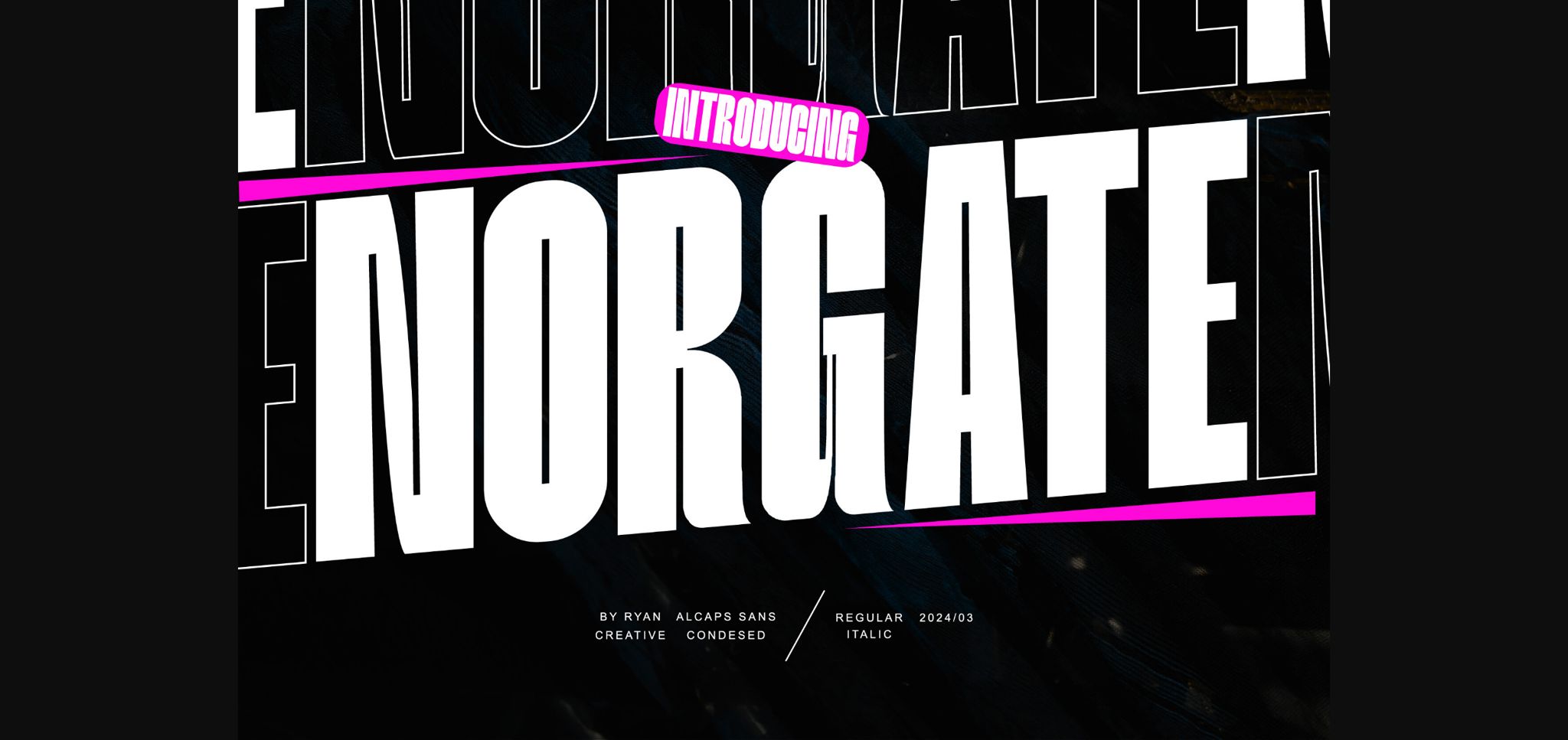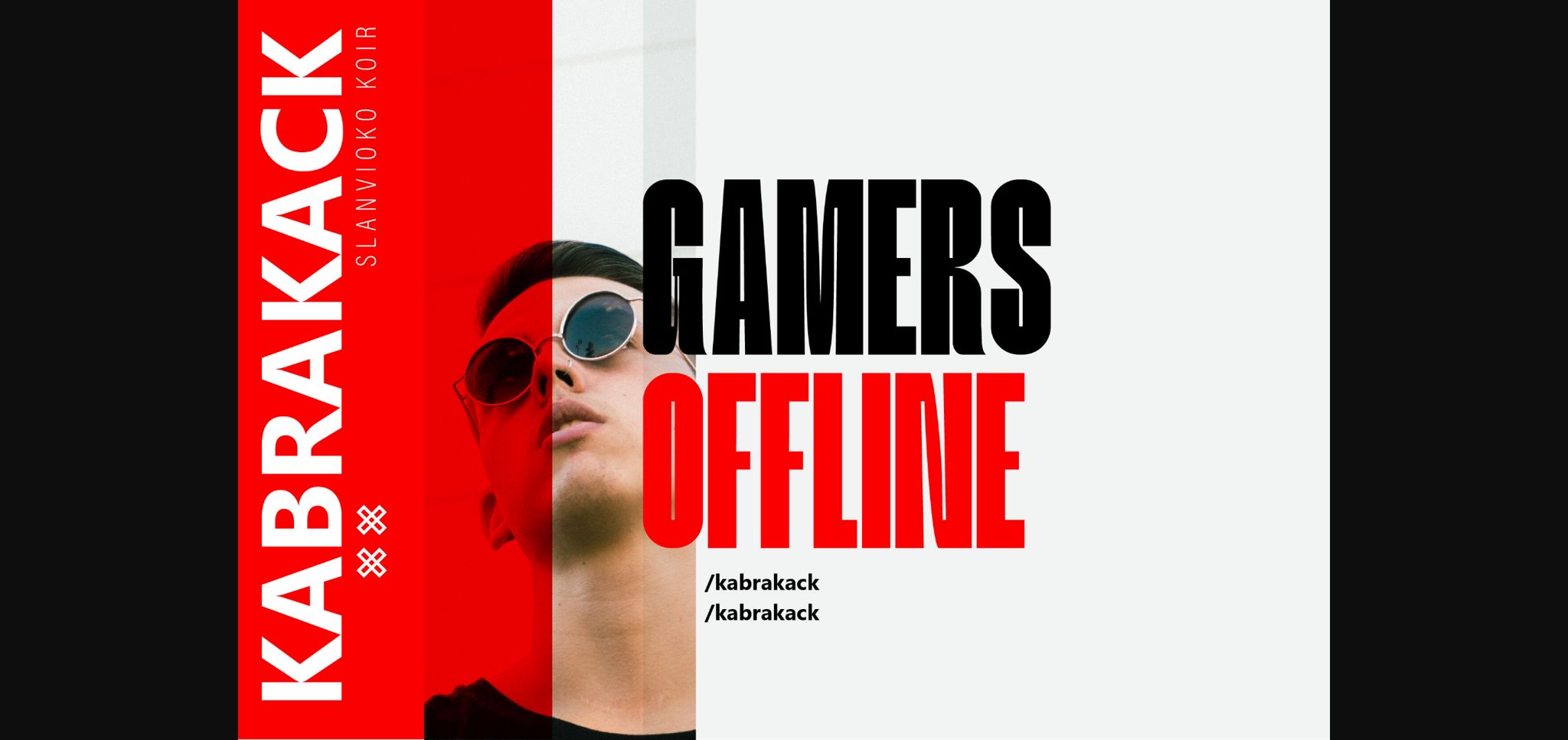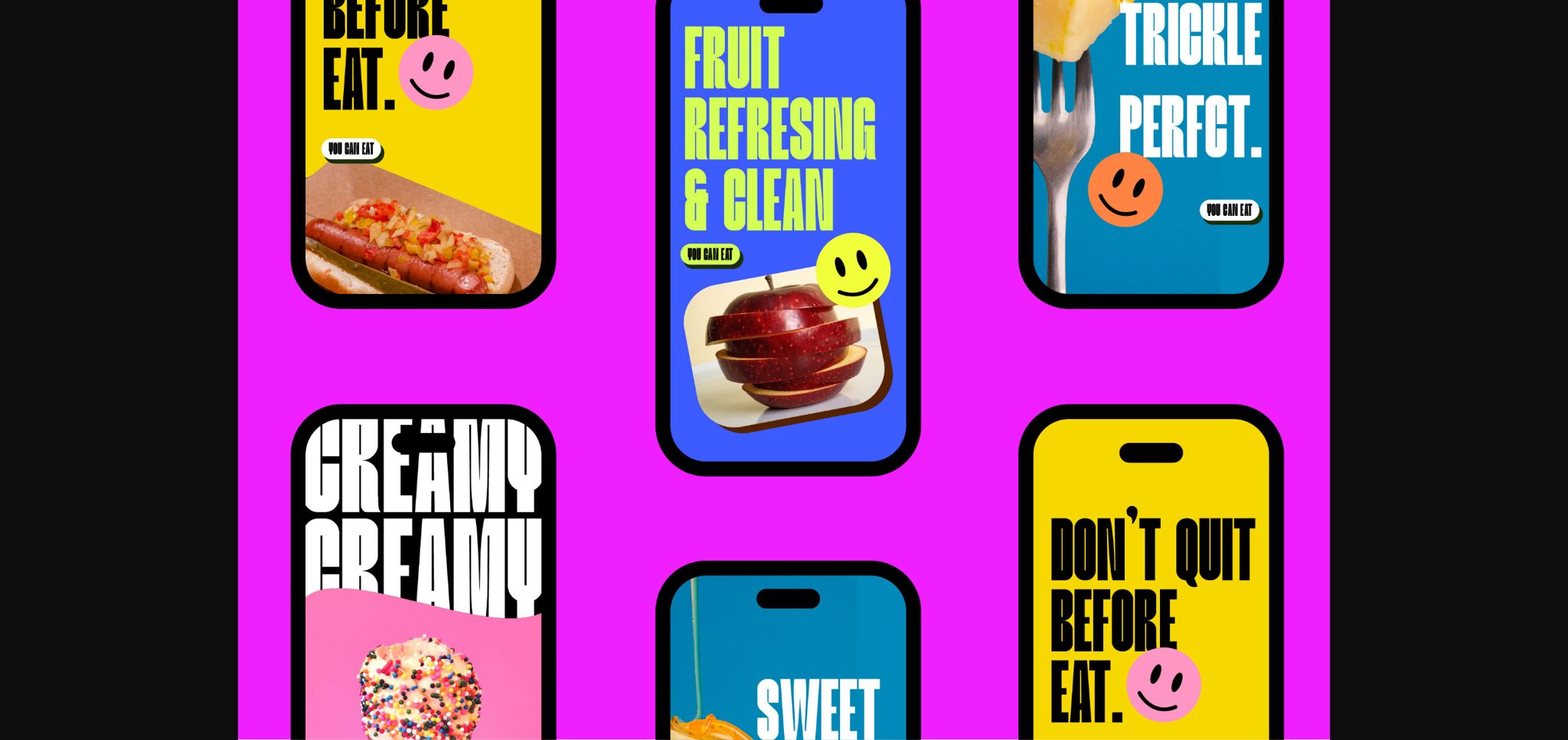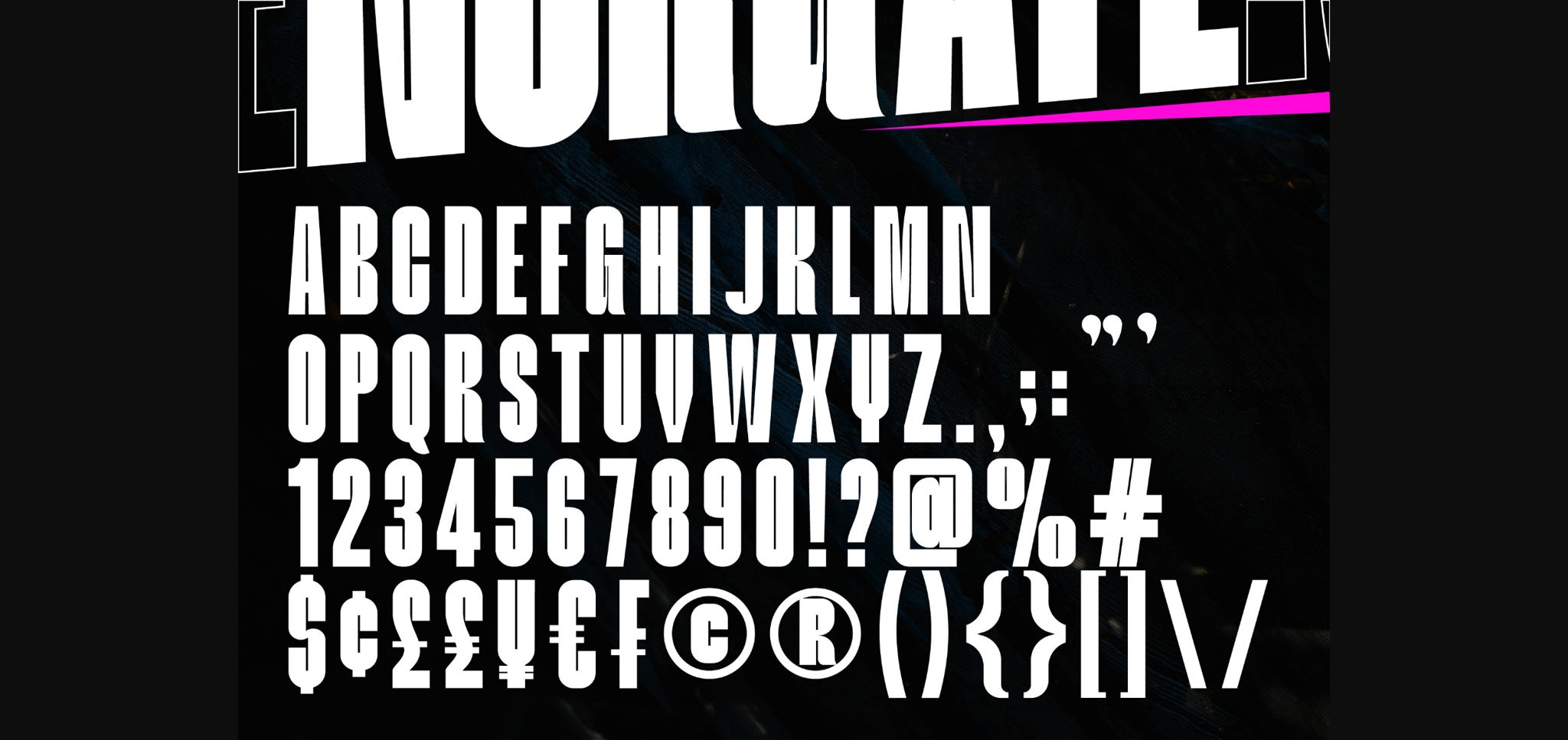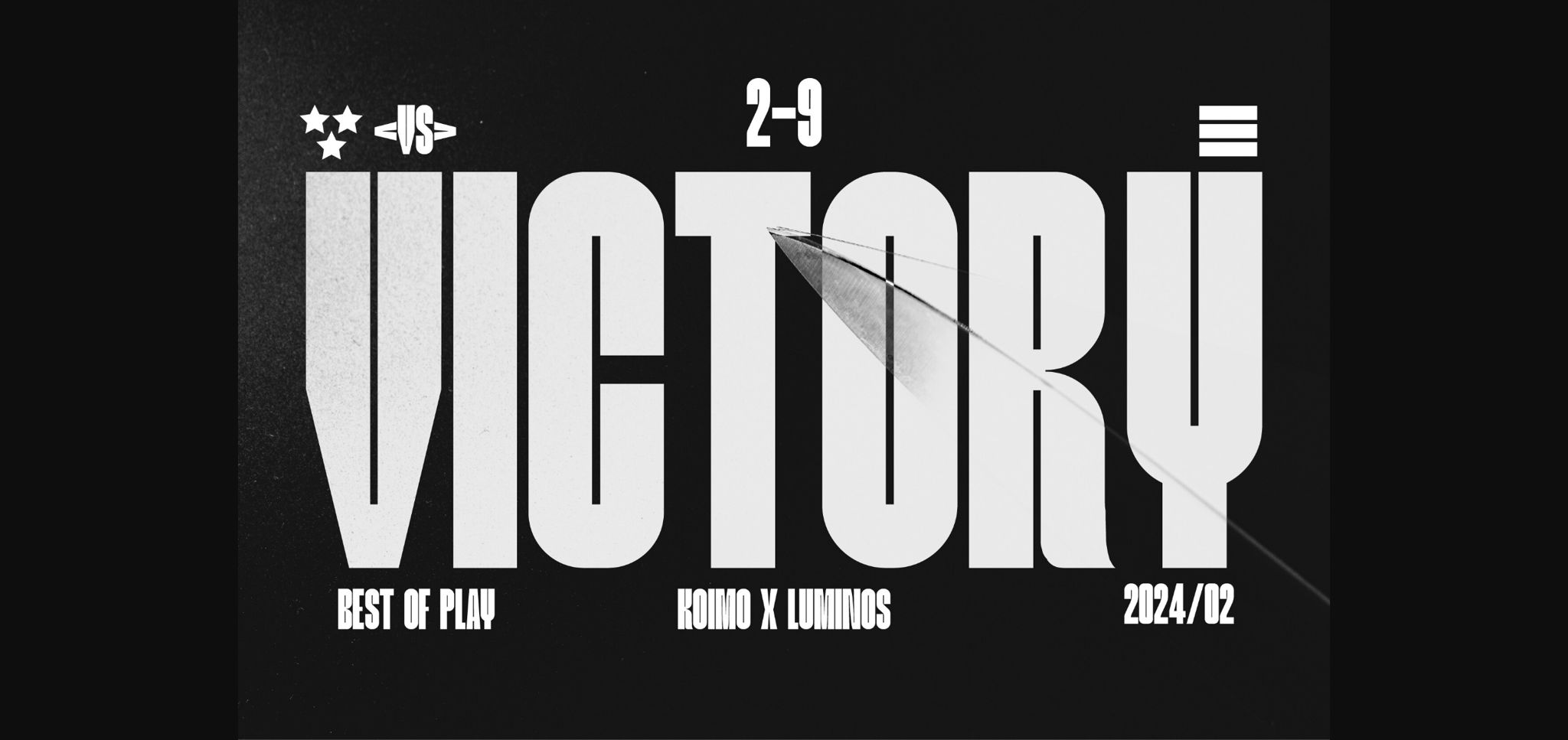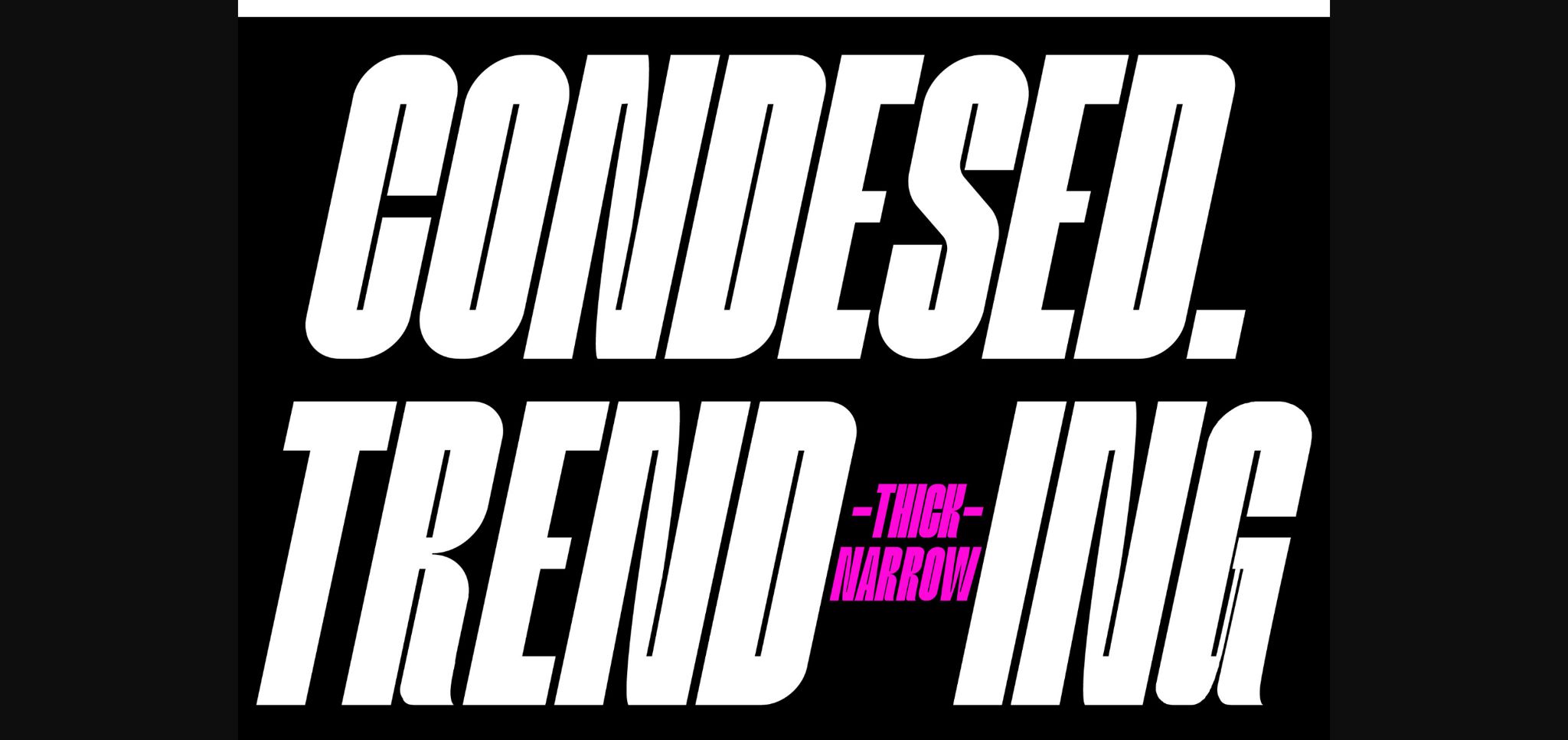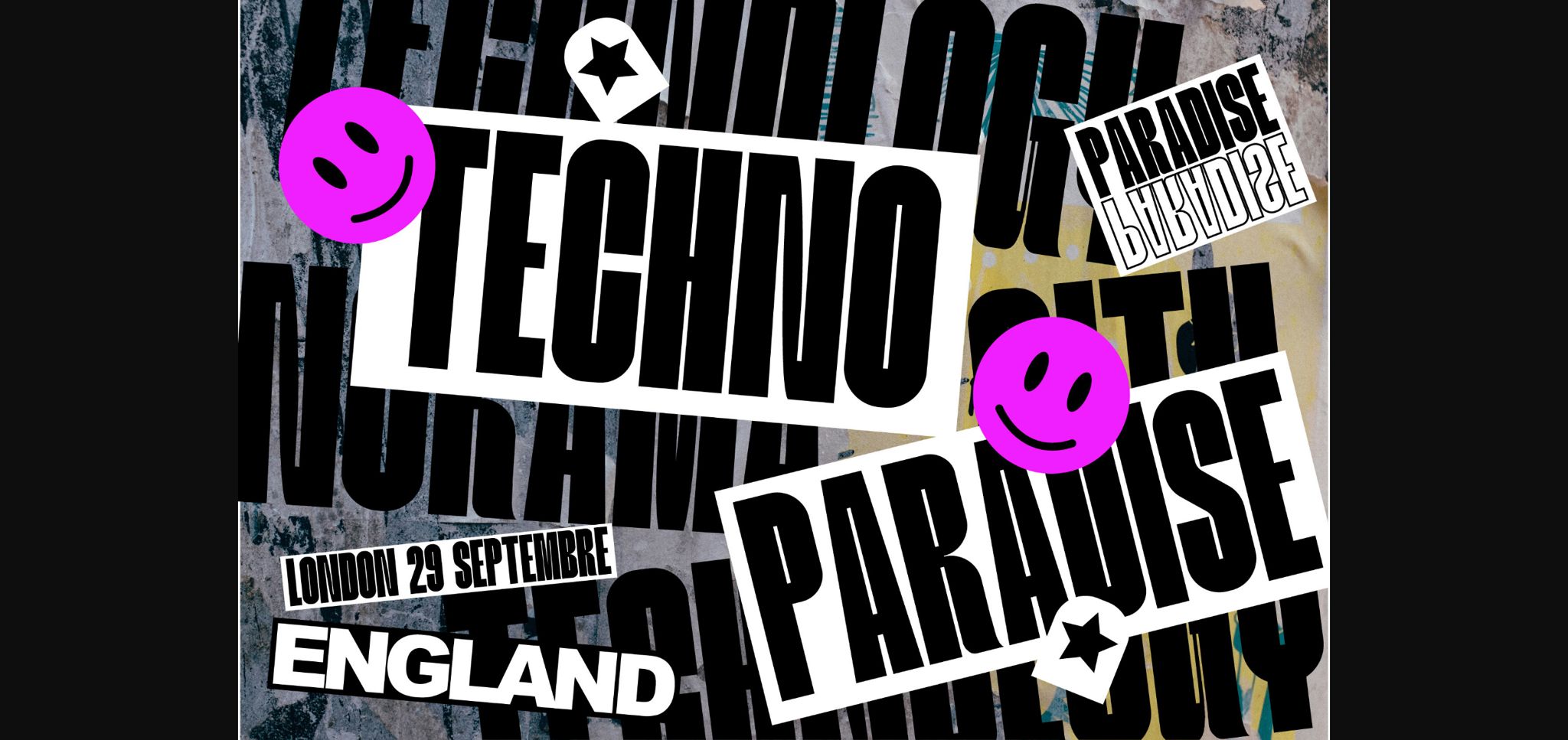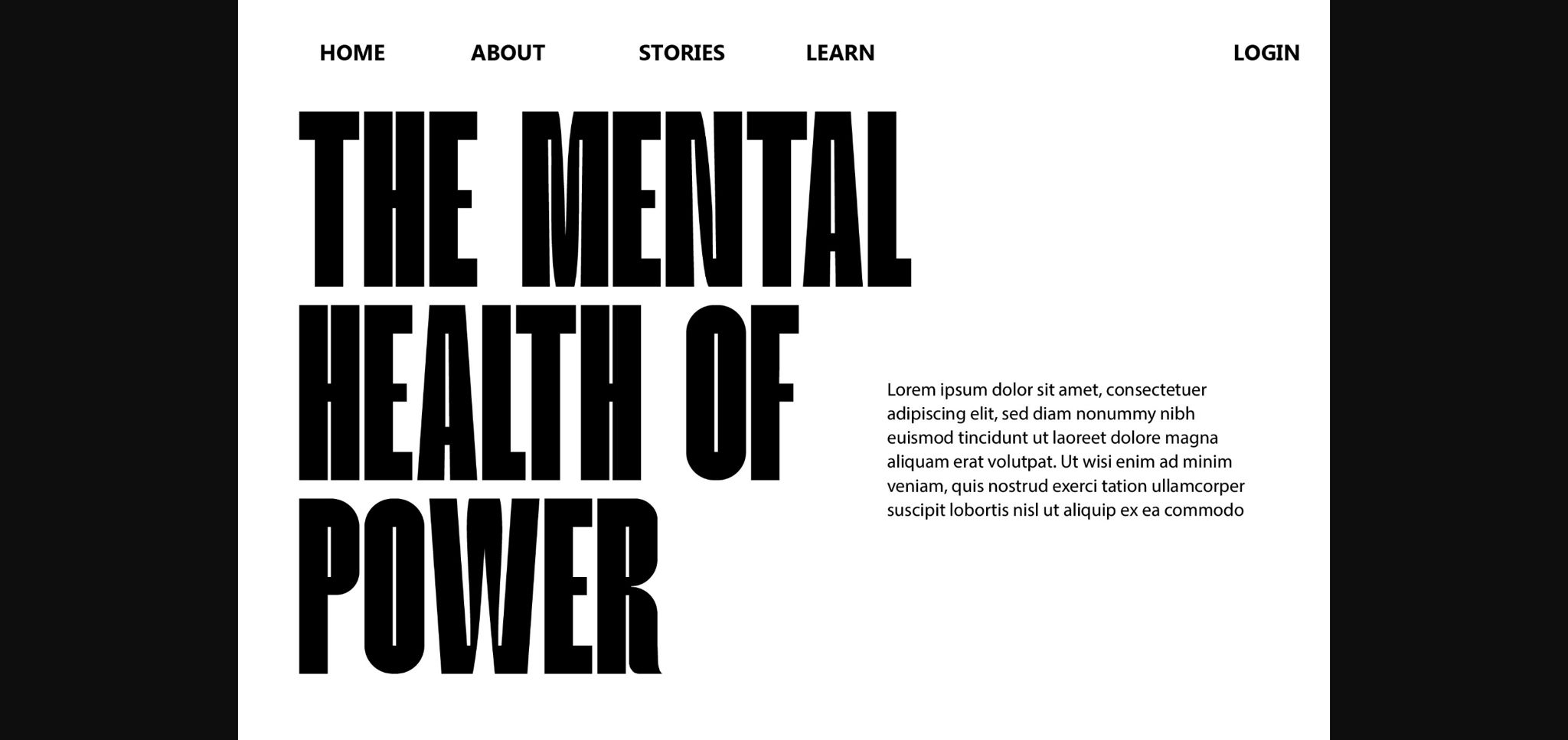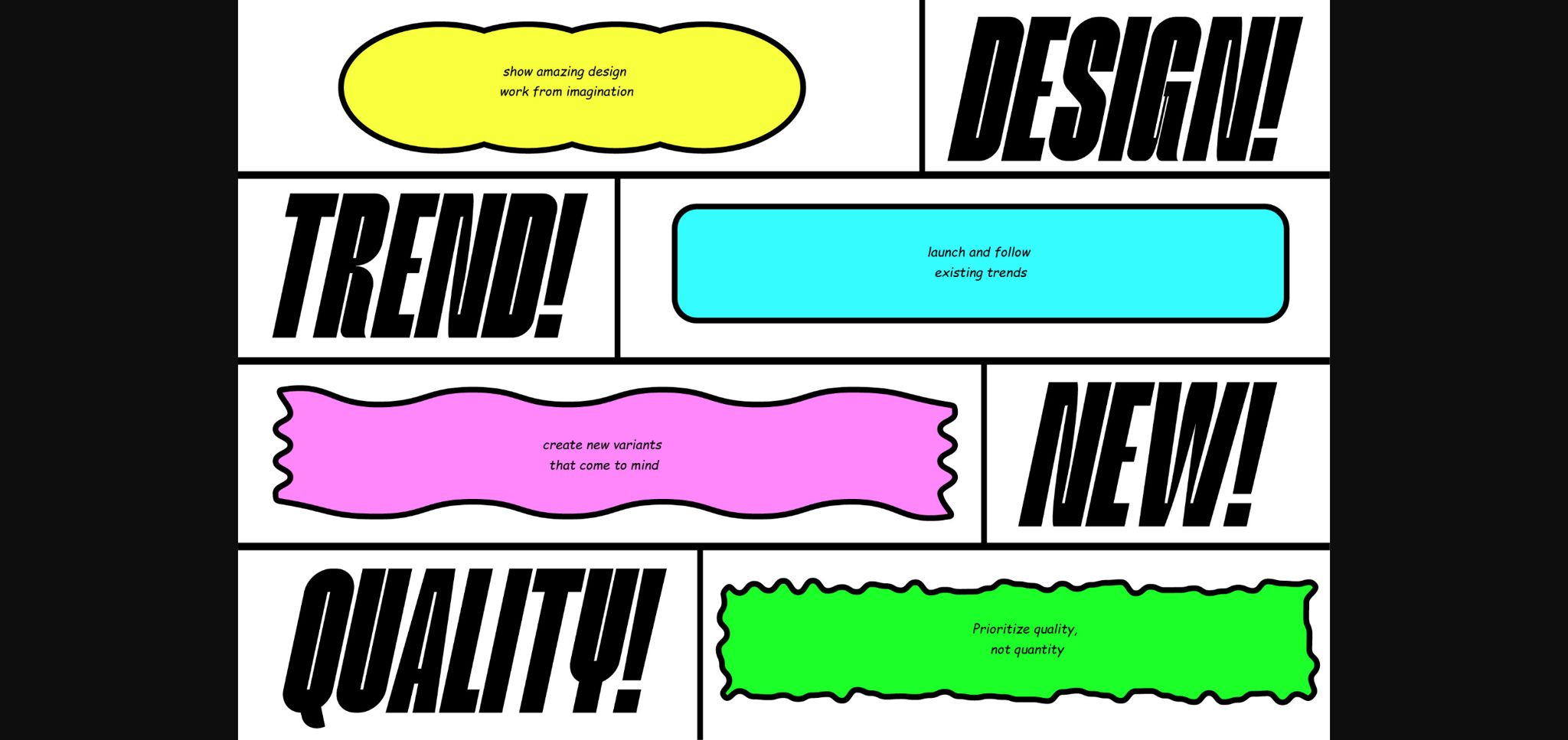
HomeSans Serif FontsNorgate Font Sans Serif Fonts Norgate Font FacebookXPinterestWhatsApp 1 of 11 ... Norgate Font Poster 2... Norgate Font Poster 3... Norgate Font Poster 4... Norgate Font Poster 5... Norgate Font Poster 6... Norgate Font Poster 7... Norgate Font Poster 8... Norgate Font Poster 9... Norgate Font Poster 10... Norgate Font Poster 11... About Norgate Font Norgate is a cool and modern sans-serif font designed to command attention. Add it to your creative ideas and you will be impressed by the generated outcome! DOWNLOAD NOW People also explored Agoda Font Matilda Calrysta Vinoqio Font Riverstock Font Graciola Font V String Font Natasha Wilona Font Sophia Rosabella Font Clarsly Medium Font 313 0 TagsNorgateNorgate Font Previous articleNorgate FontNext articleMarseille Font LEAVE A REPLY Cancel reply Comment: Please enter your comment! Name:* Please enter your name here Email:* You have entered an incorrect email address! Please enter your email address here Website: Save my name, email, and website in this browser for the next time I comment. Personal Use Free Stentiga Personal Use Free Read more about this font Gupis Personal Use Free Read more about this font Banana Valentine Personal Use Free Read more about this font Styledeep Personal Use Free Read more about this font BLOG Free Fonts Risk: Why Free Fonts Can Be Dangerous for Designers Free Fonts Risk: Why Free Fonts Can Be Dangerous for Designers Using free fonts is a common practice in web and graphic design. However, the... How to Cut Any Font on Cricut: Convert a Font to SVG (Free) Using Fonts in Digital Marketing: Tips to Strengthen Your Brand Identity Top 7 Google Fonts Alternatives for Faster and Privacy-Friendly Web Design (2025)